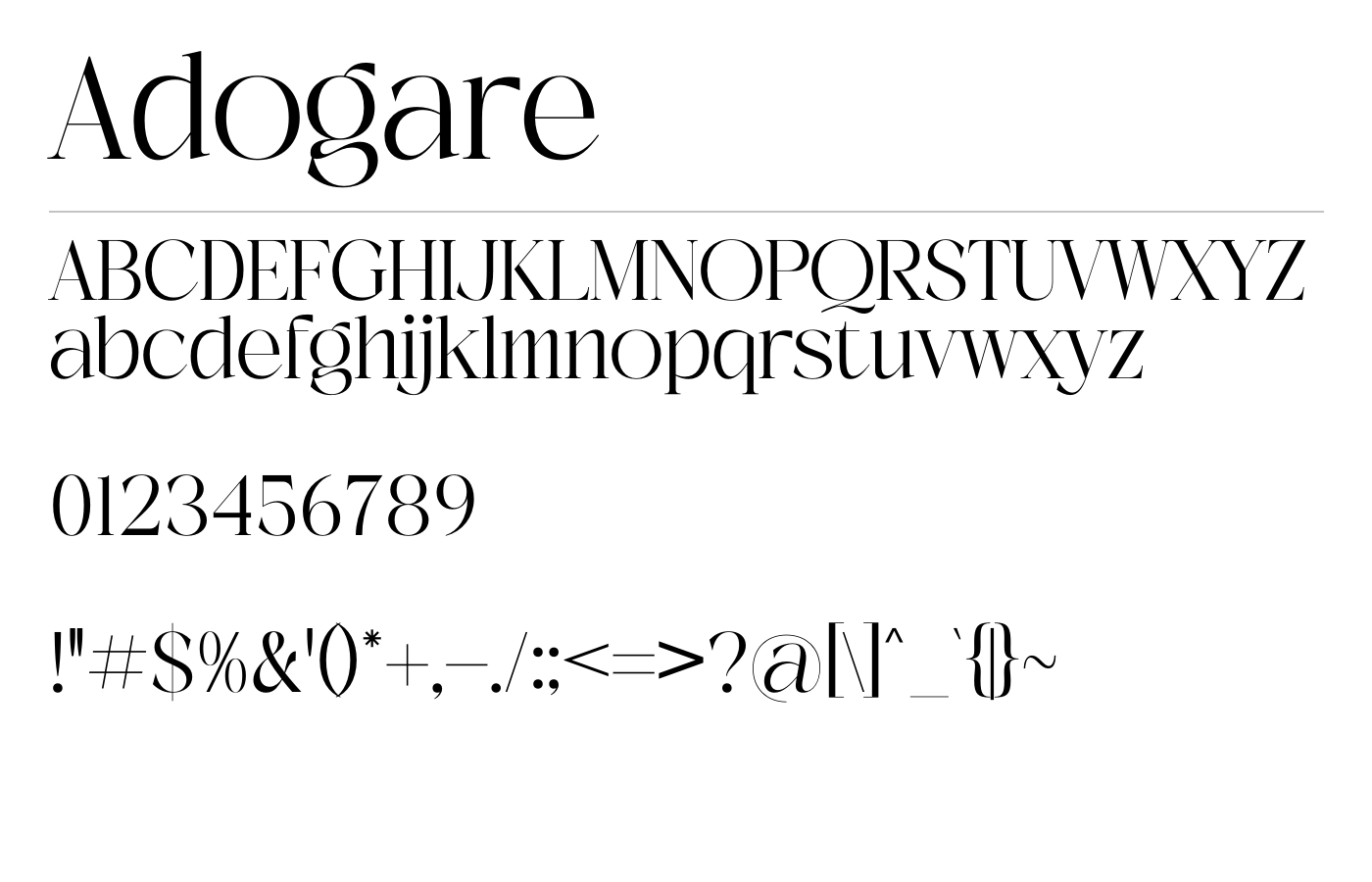
Adogare is an elegant serif font with a modern Didone style characterized by high contrast between thick and thin strokes and finely tapered serifs. Its tall, narrow letterforms and unique details like the curved tail on the Q and single-story g give it a sophisticated and refined feel, perfect for luxury branding, editorial headlines, and stylish packaging. This font works beautifully in settings where a touch of classic elegance with contemporary flair is desired.
Adogare Font
About Adogare Font